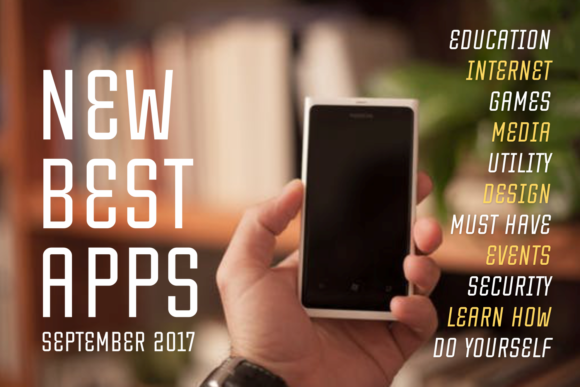
Tentram Typeface
Tentram Display Font
Introducing Tentram Typeface! Tentram designed by Situjuh. Tentram, a display font with a retro mobile feel. This is the look you expect when you find your old mobile phone tucked away in a drawer and you boot it up for the first time in years. Tentram is great for digital design such as apps and will help you create a unique brand experience.